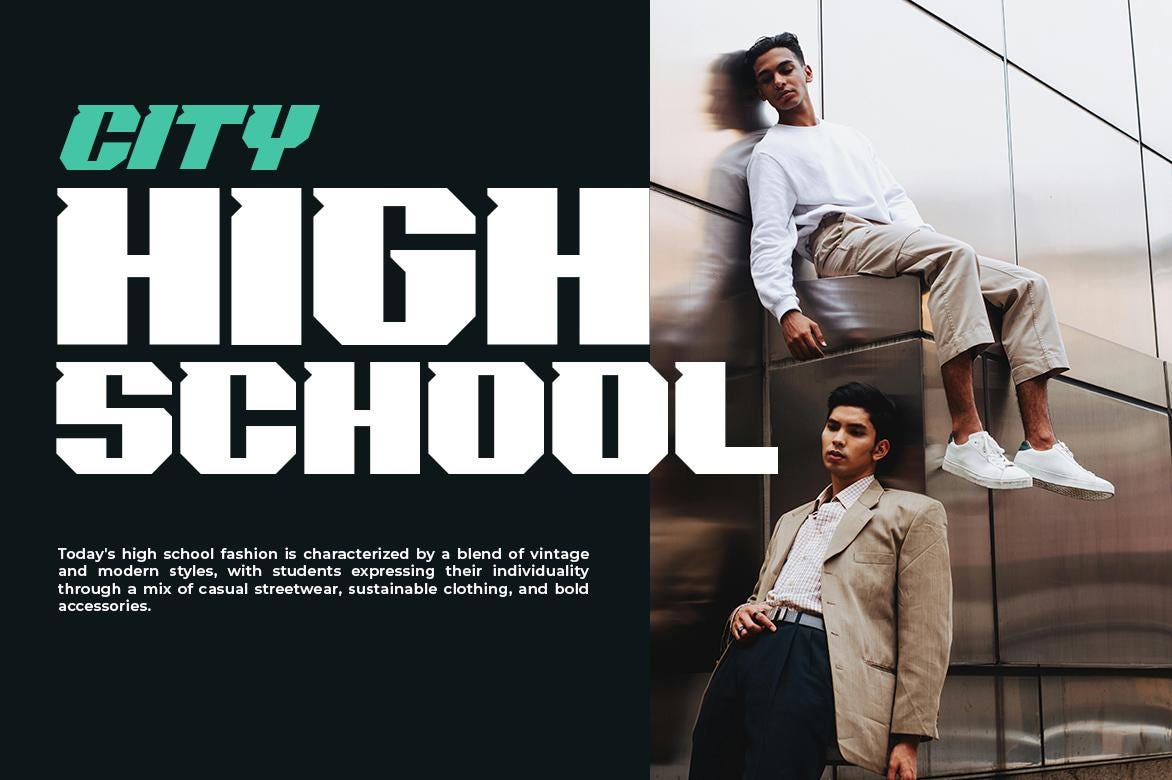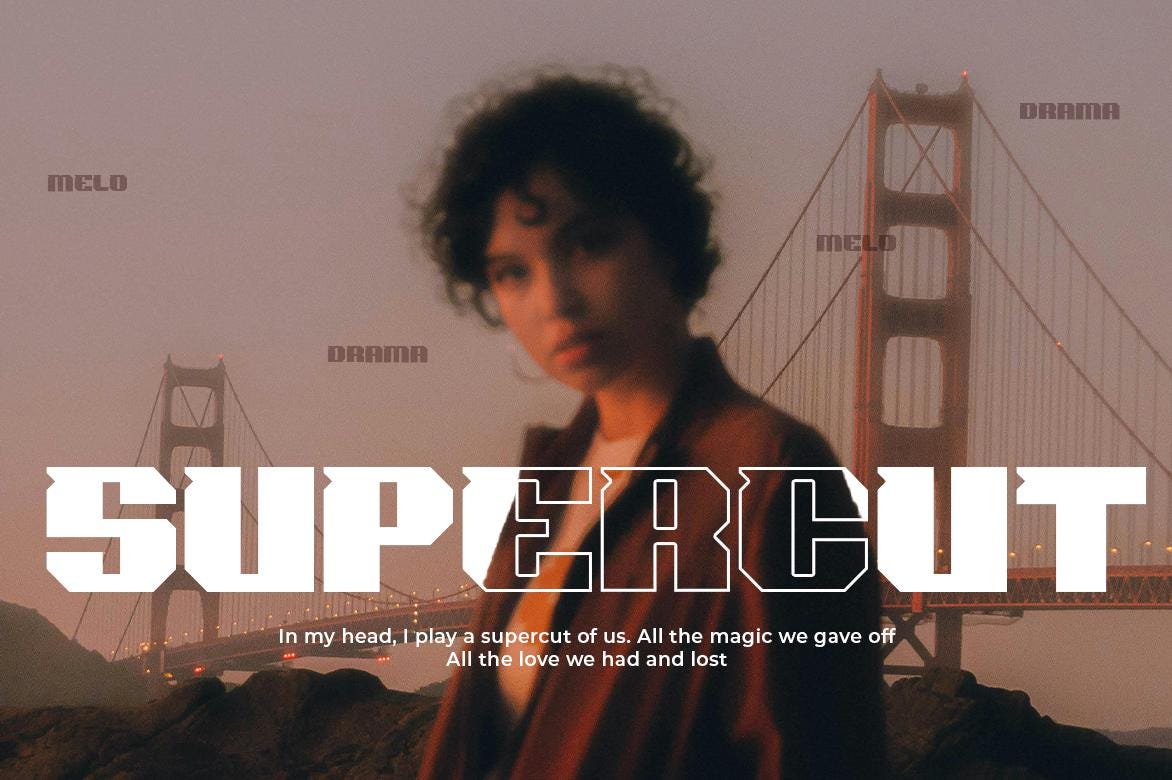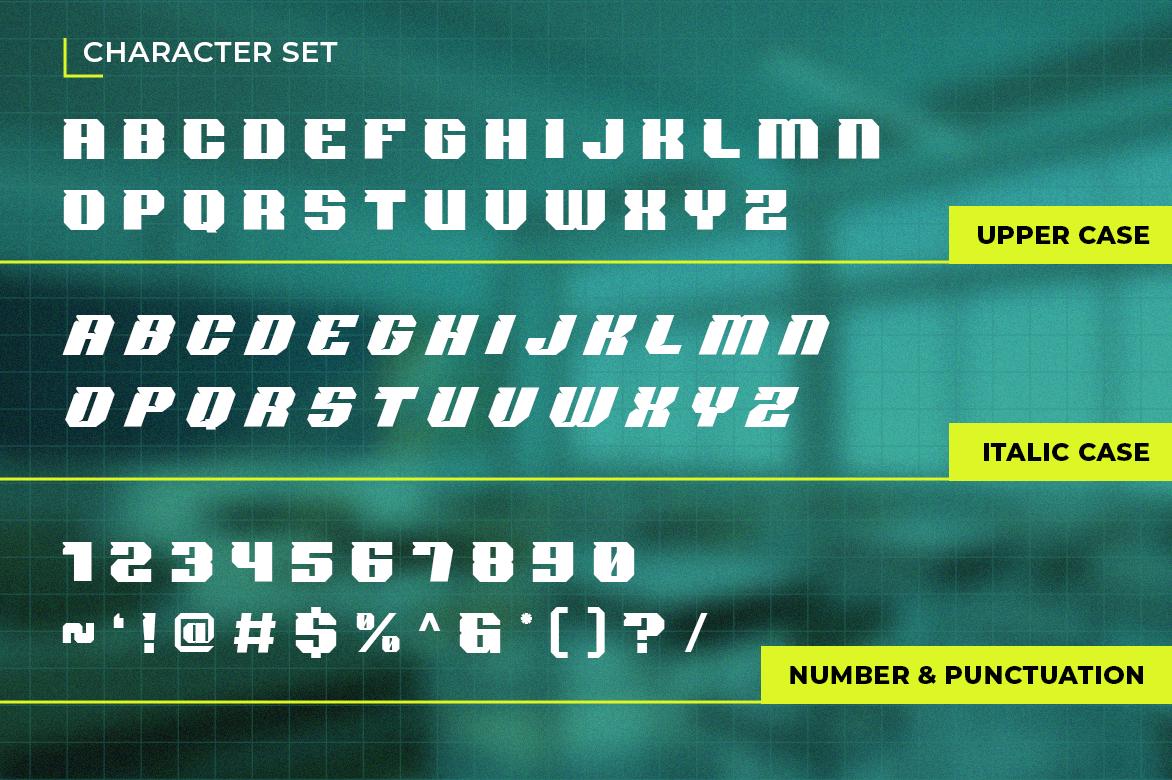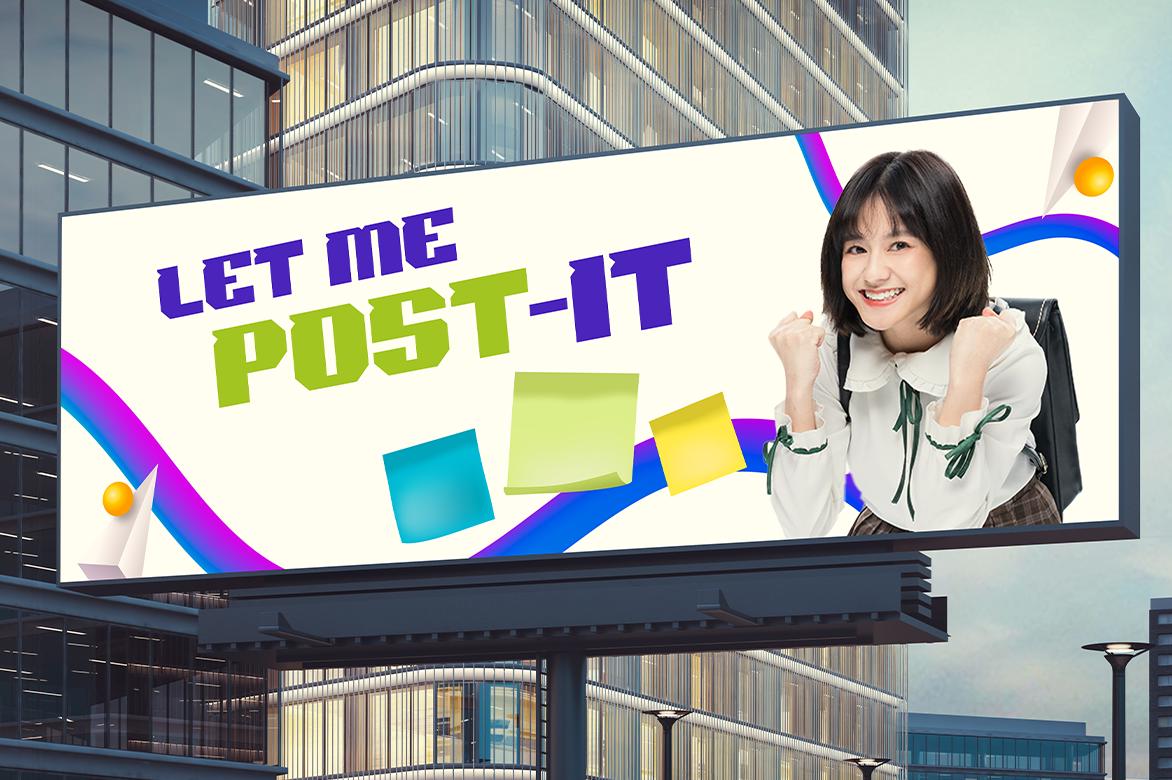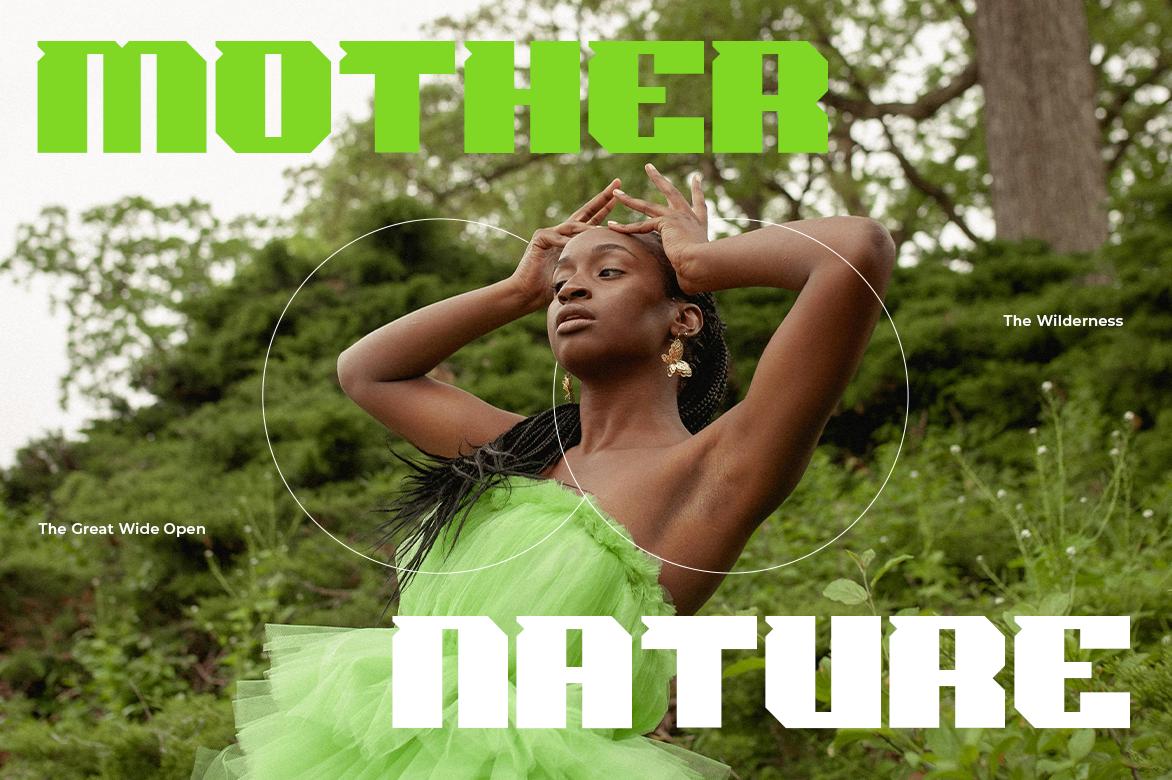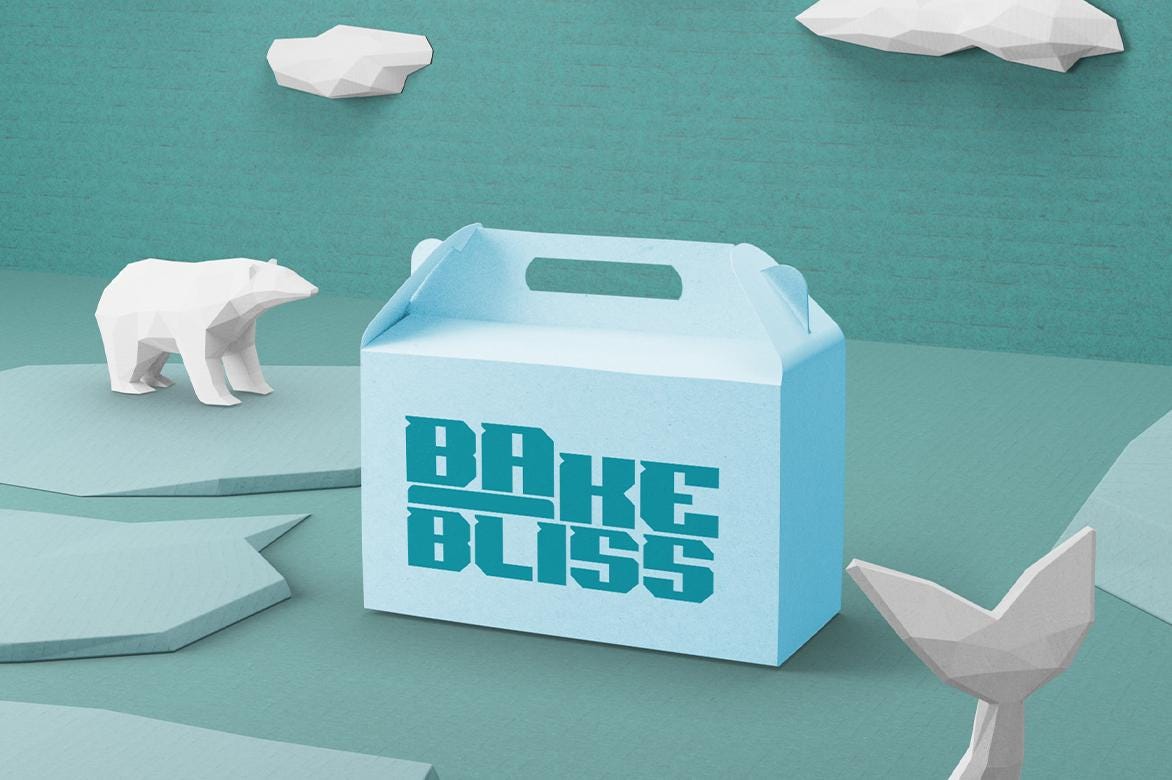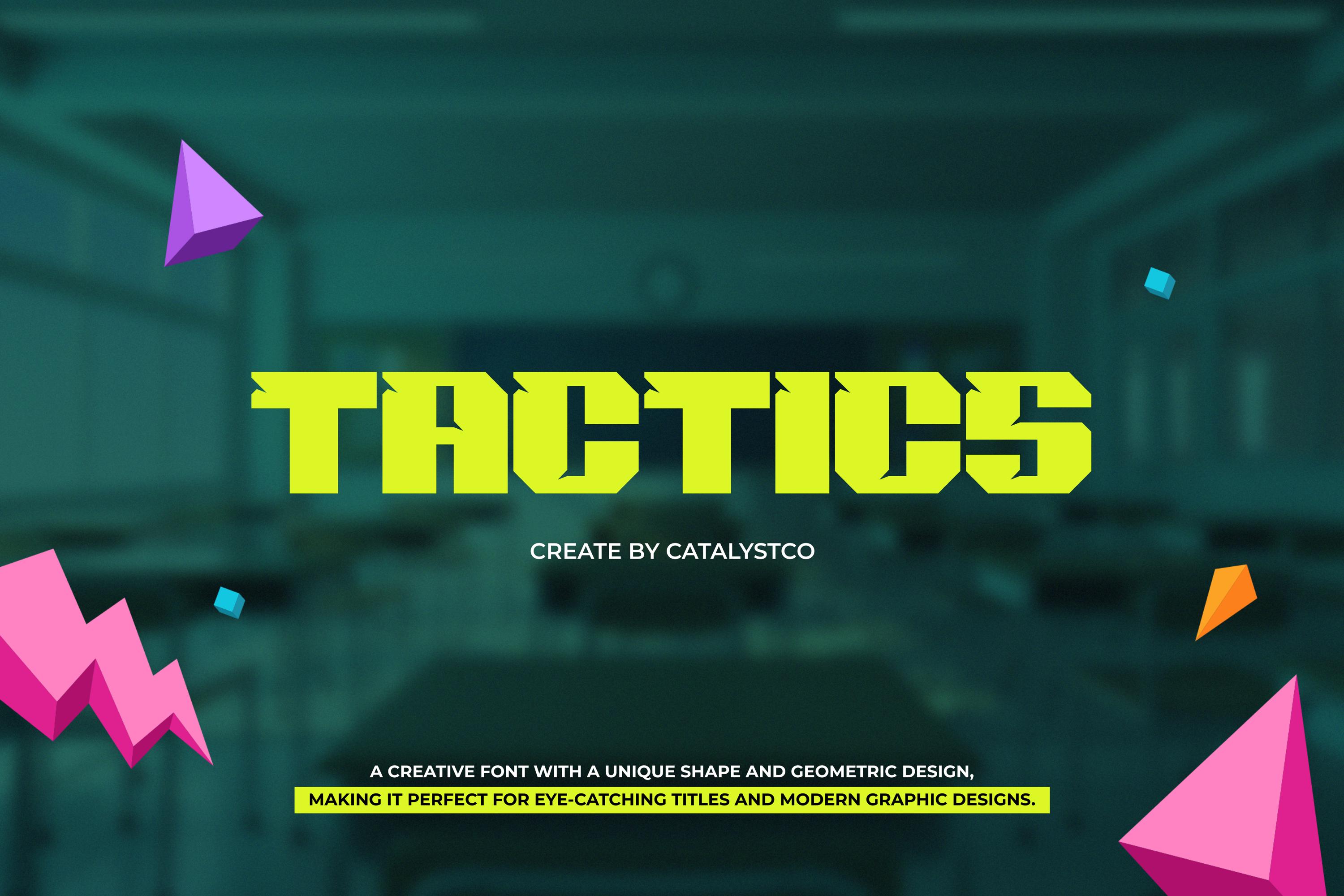
Introducing our new "Tactics" Modern Font, boasting an Elegant Style, perfect for branding, logos, master heads, and myriad other applications.
Features : - Multilingual - Uppercase alphabet A-Z - Lowercase alphabet a-z - Alternate Character - Numbers 0-9 - Some punctuation ____________________________________________________________________________________